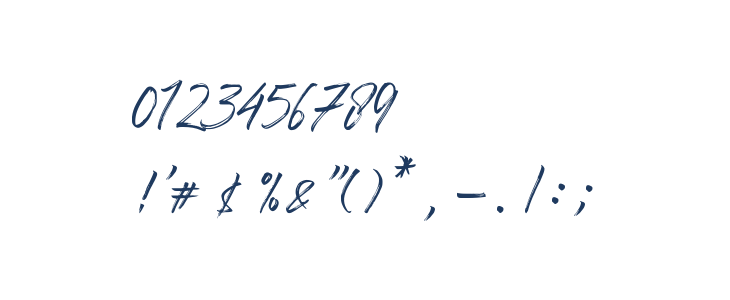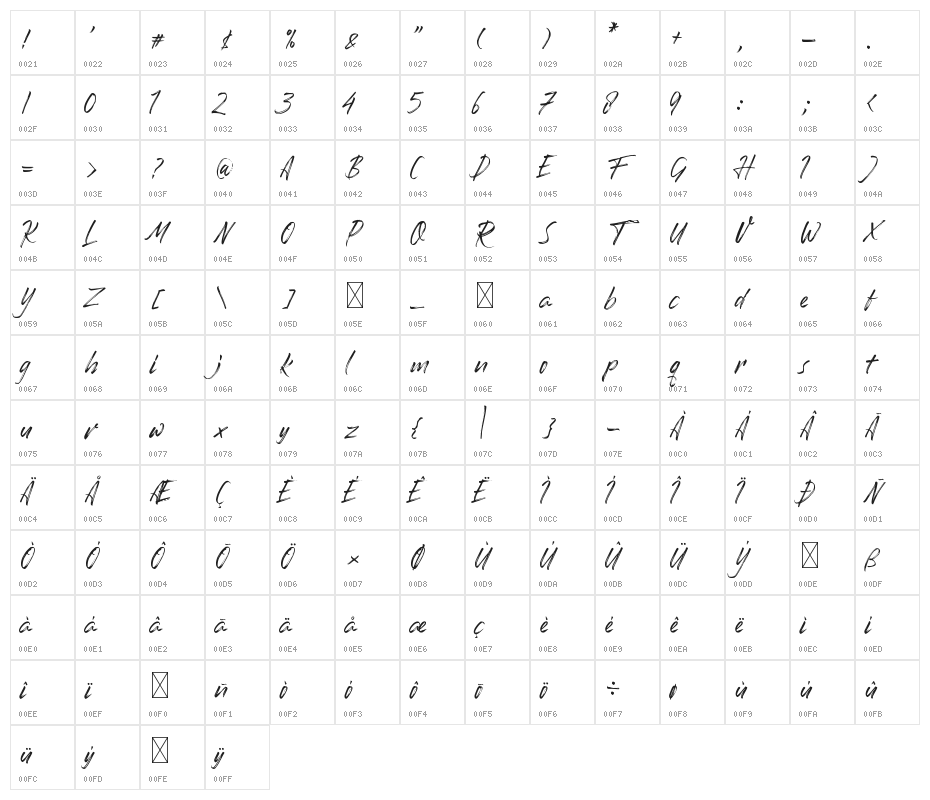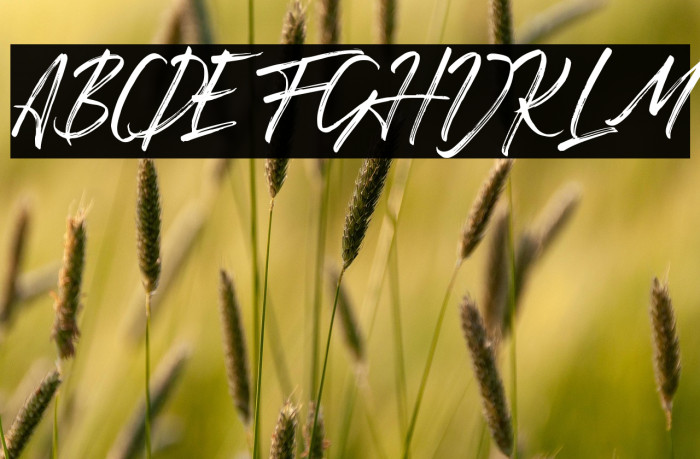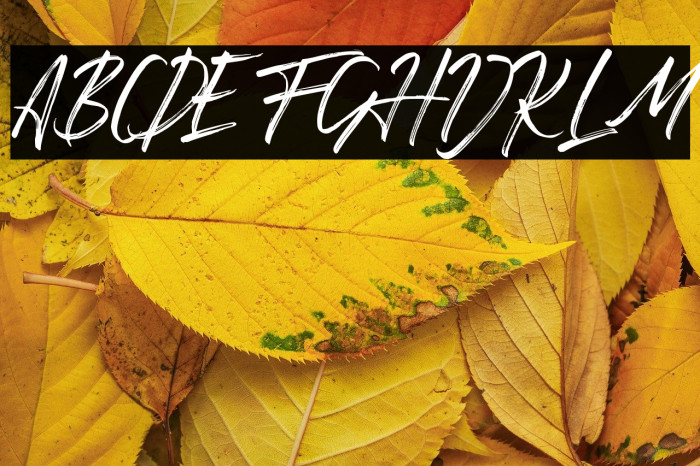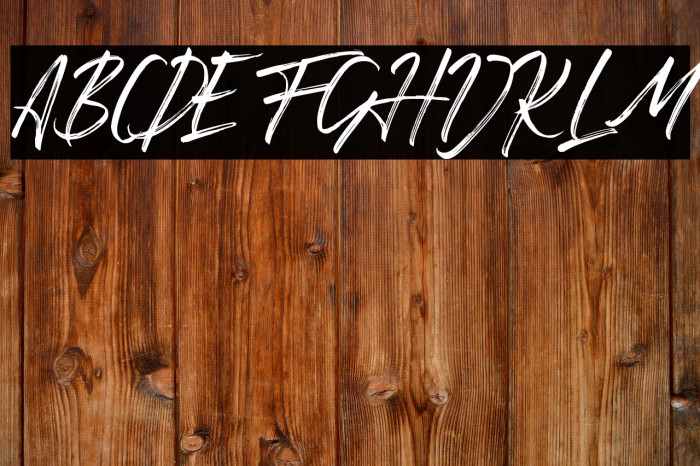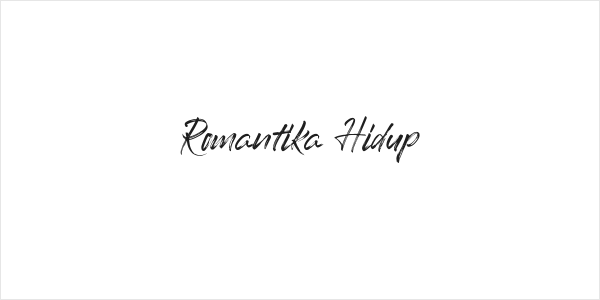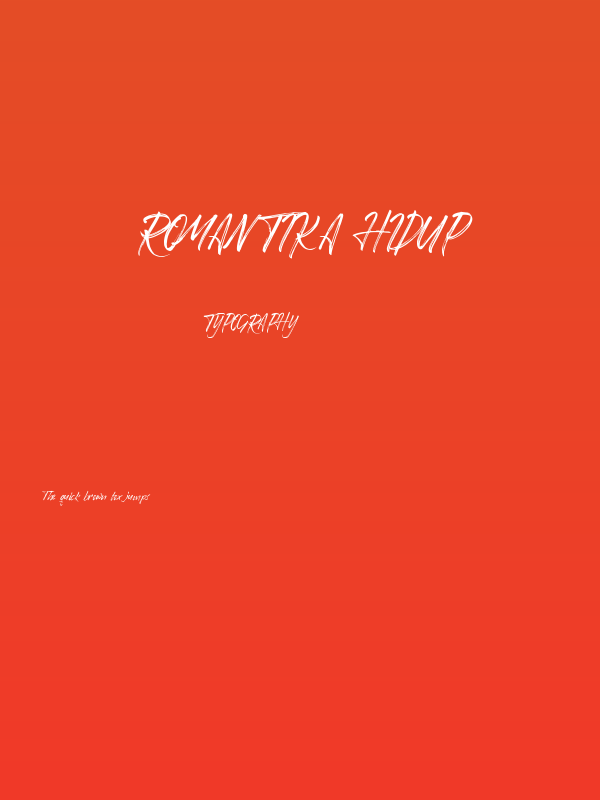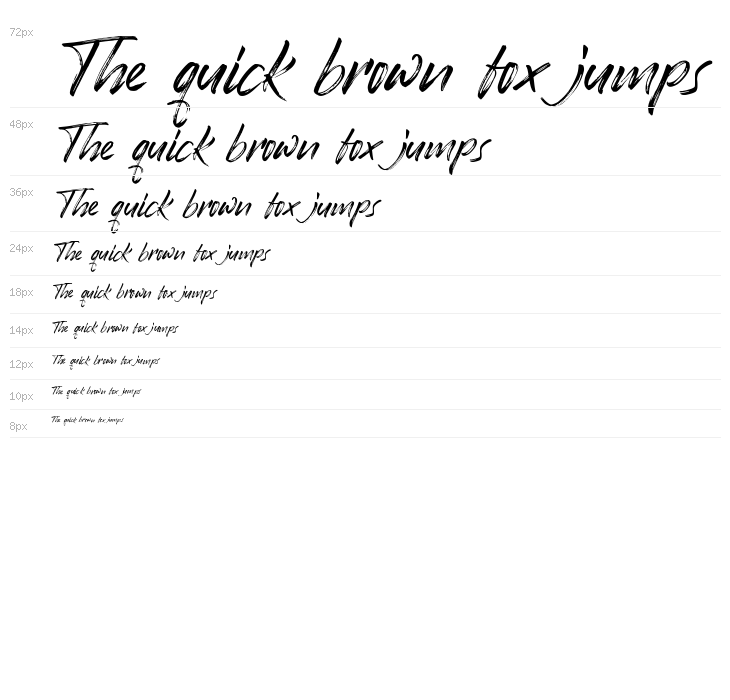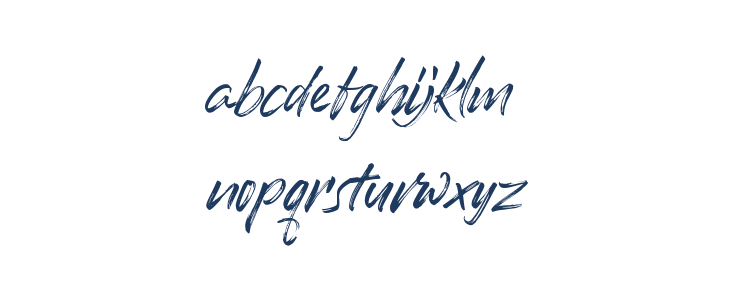
Romantika Hidup Font
Romantika Hidup Description
This font features a dynamic and expressive style, characterized by its fluid, brush-like strokes that convey a sense of movement and energy. The uppercase letters are bold and sweeping, with a slight slant that adds to the font's lively appearance. The lowercase letters maintain this energetic flow, with some characters featuring unique loops and curves that enhance the overall aesthetic. Numbers and special characters are crafted with the same attention to detail, ensuring consistency throughout. The font's artistic flair makes it suitable for creative and informal applications, where a touch of personality is desired.
| Use Case | Headlines, Logos, Artistic projects |
| Proposed Projects | Ideal for branding, posters, invitations, and artistic projects requiring a personal touch. |